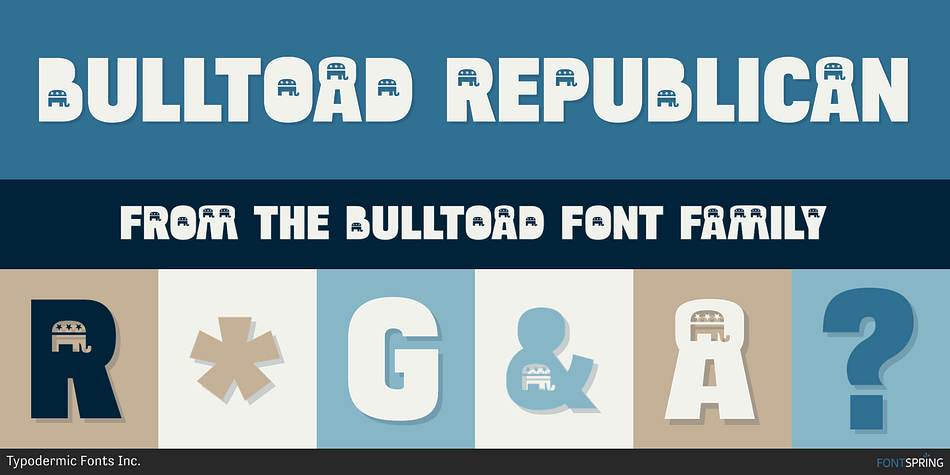
BULLTOAD REPUBLICAN
Bulltoad is a novelty font family. This typeface has thirty-three styles and was published by Typodermic Fonts Inc.
Bulltoad is a set of 33 fonts with thematic icon counters. Apple, boat steering wheel, classic bomb, bone, butterfly, maple leaf, car icon, camera, crosshair, crucifix, skull, U.S.A. Democrat icon, female symbol, fish, medical cross, hemp leaf, Jesus fish, jet airliner, old-fashioned key, heart, shamrock, male symbol, crescent moon, peace sign, pistol, question mark, U.S.A. Republican icon, rose, star, smiley face, star of David, sun, lightning bolt.